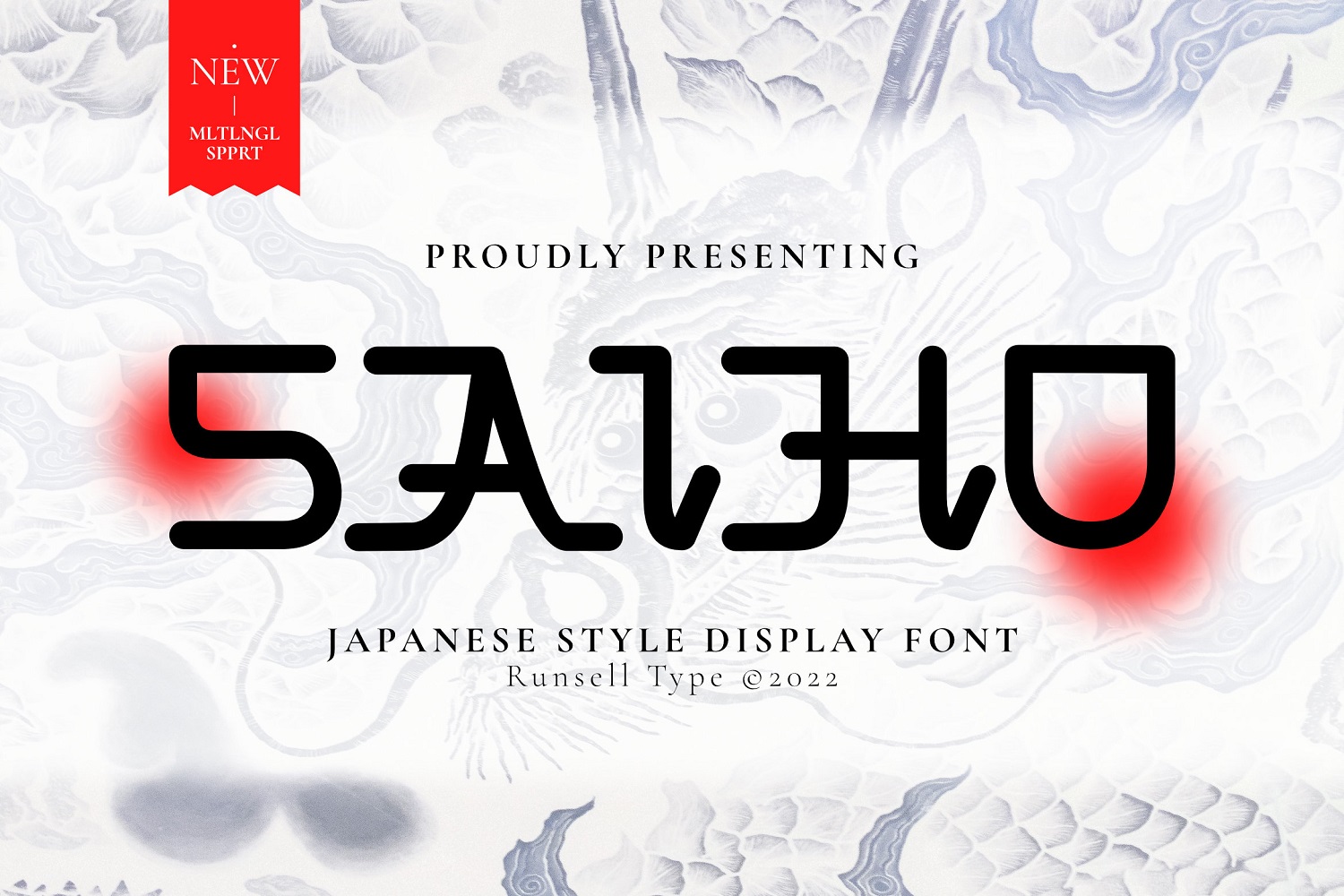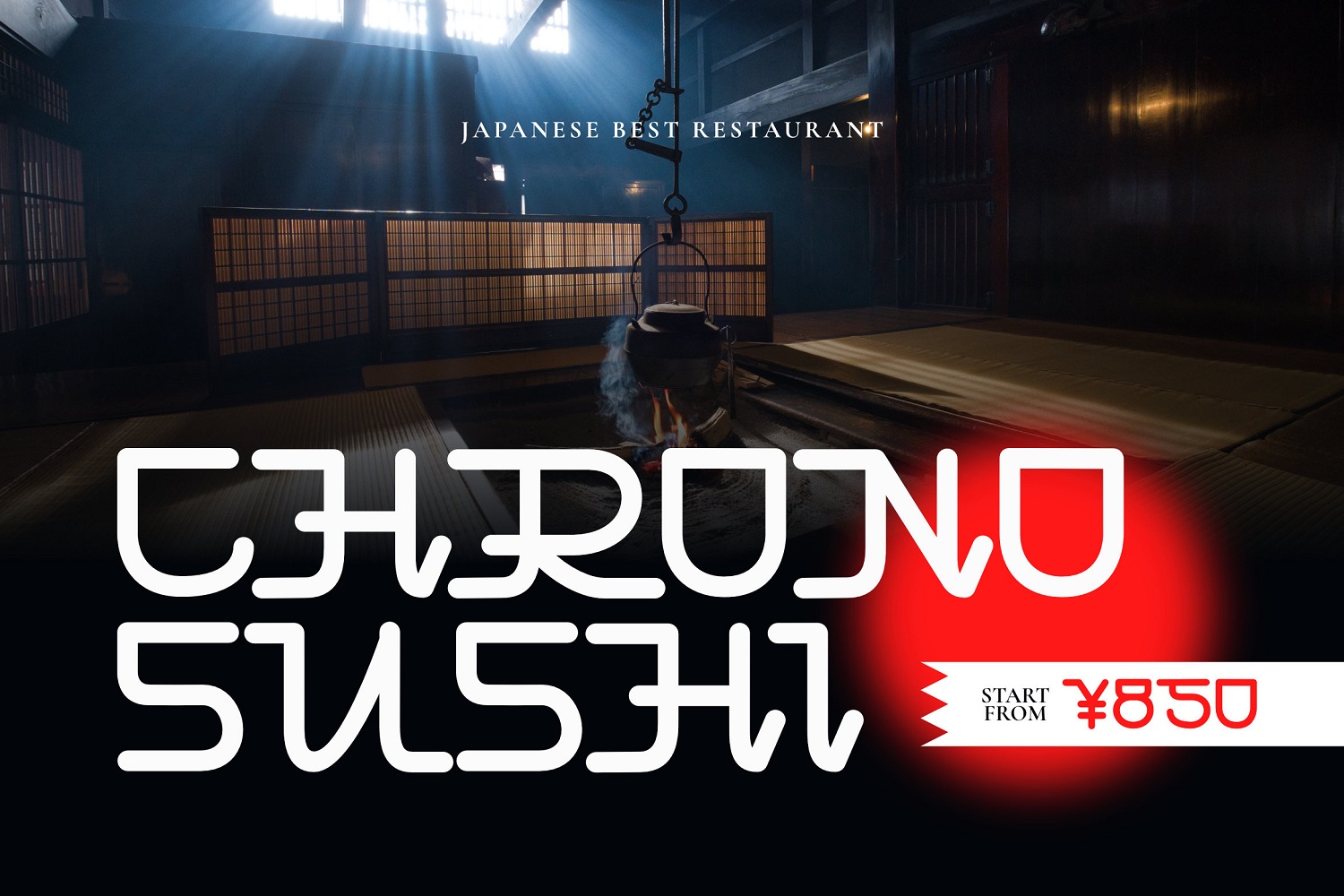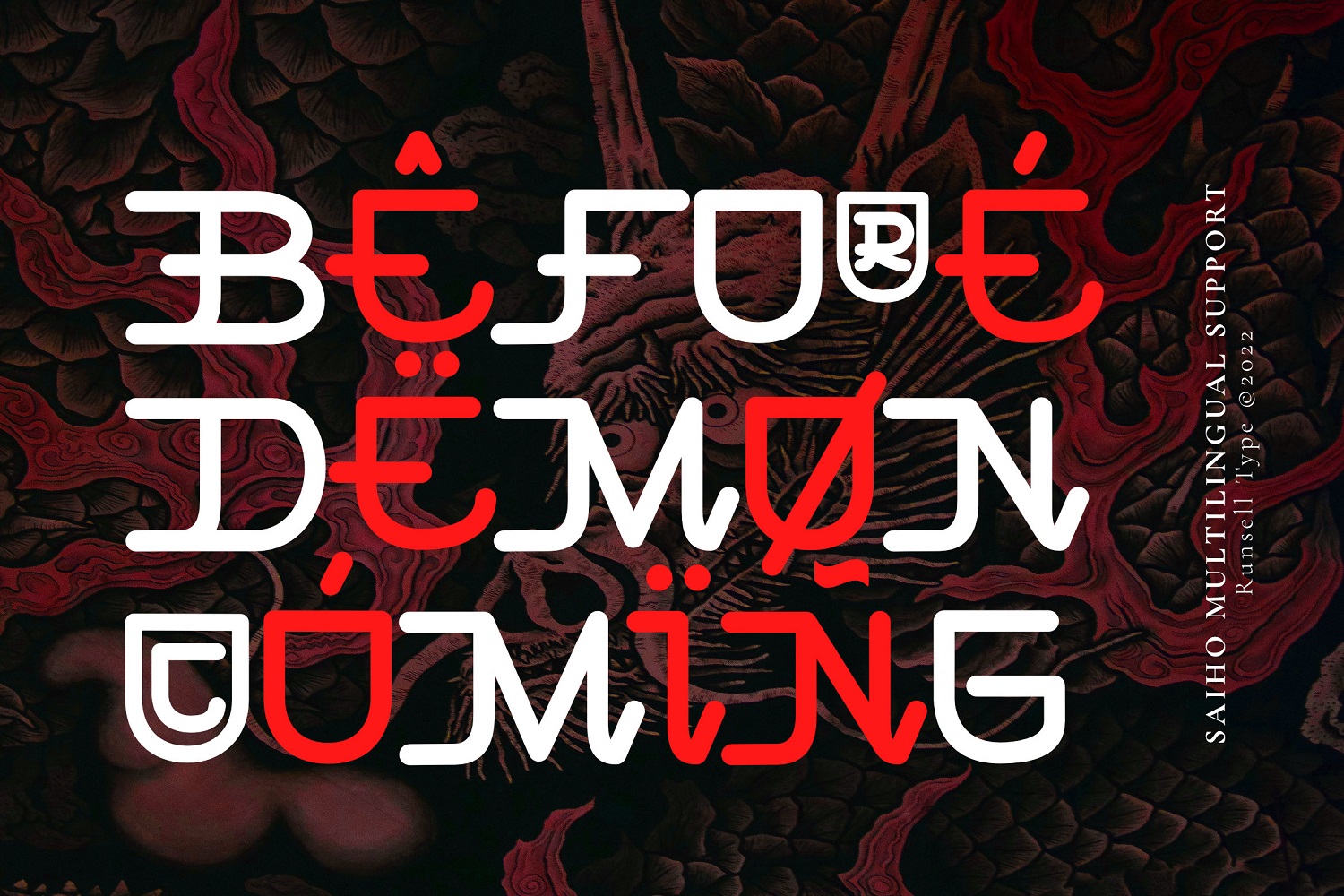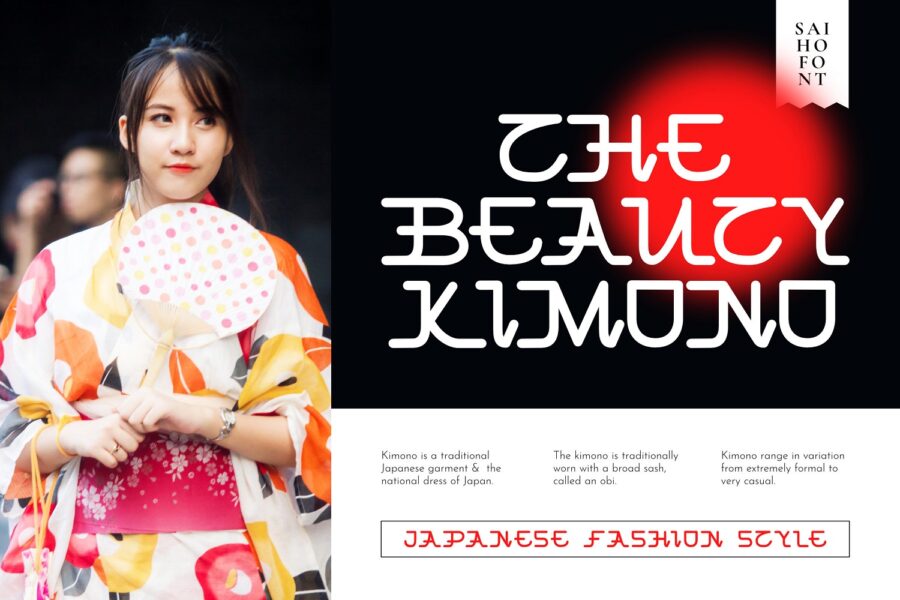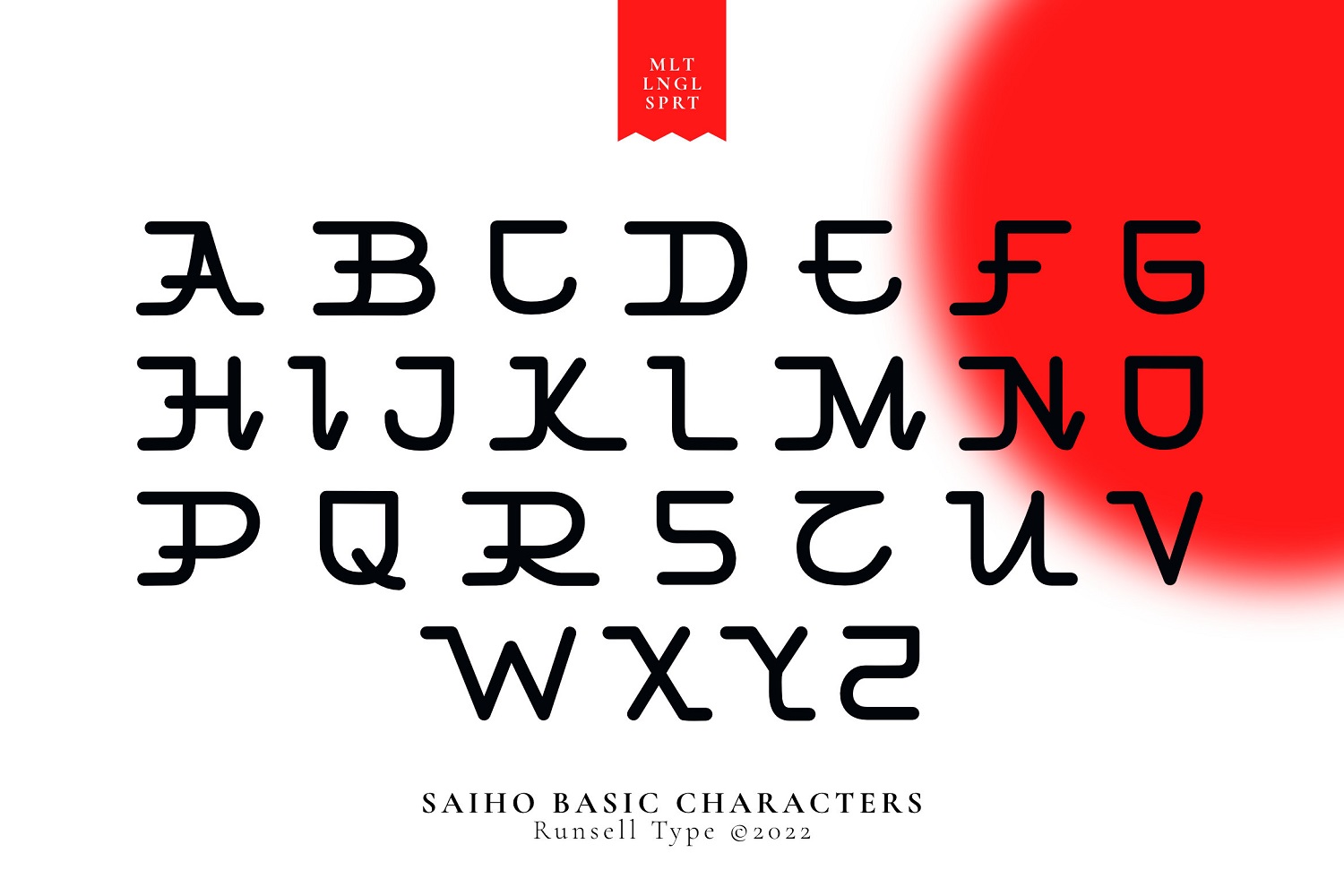
Saiho is a bold and futuristic Japanese-style display font that fuses modern minimalism with traditional Eastern aesthetics. Its geometric letterforms are inspired by katakana strokes, giving it a distinct cultural flavor while maintaining contemporary readability. Saiho is ideal for branding, posters, restaurant signage, apparel design, and creative projects that seek to embody Japanese identity with a sleek, modern twist.
The font includes uppercase characters, alternates, multilingual support, and punctuations. Saiho offers a versatile visual experience, from sushi bar menus to streetwear logos, making it the perfect choice for designers looking to evoke tradition through innovation. Each glyph carries a unique personality, making your design feel bold, immersive, and unmistakably stylish.
Saiho